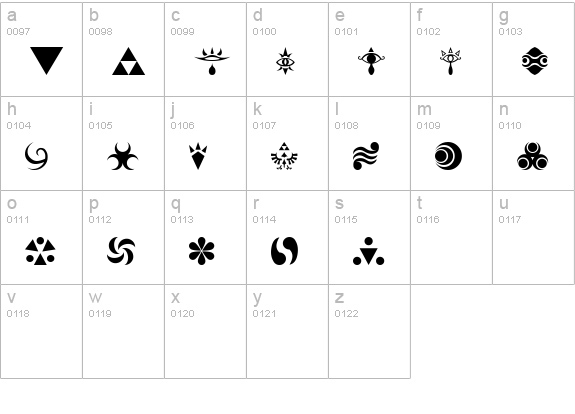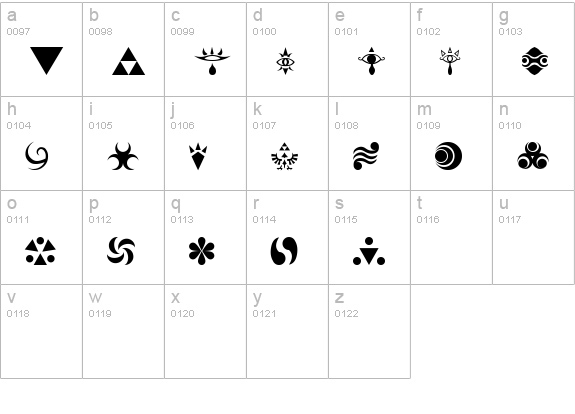
Hylian Symbols Font Details
The Hylian Symbols font is a beautifully crafted typeface inspired by the ancient symbols of the Hylian language. Each character exudes a sense of mystery and elegance, making it perfect for adding a touch of fantasy to your designs. Whether you're creating a poster for a gaming event or designing a logo for a fantasy novel, the Hylian Symbols font will surely captivate your audience. What's even better is that this enchanting font is available for free download at FontsMarket.com. You can easily incorporate the Hylian Symbols font into your projects without any cost, making it a valuable addition to your font library. Embrace the magic of the Hylian Symbols font and let your creativity soar to new heights.